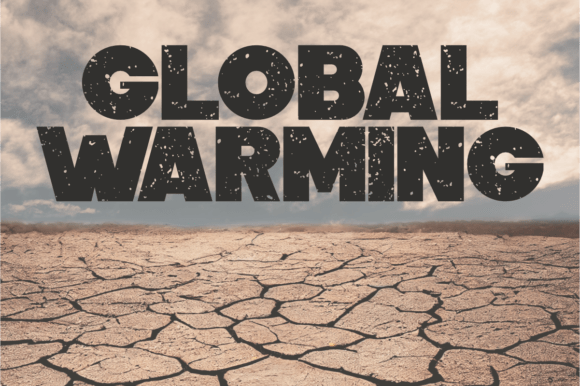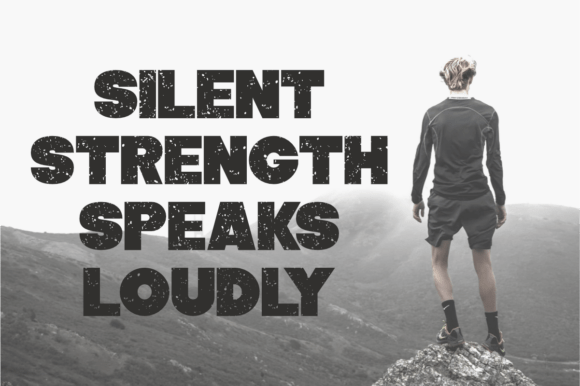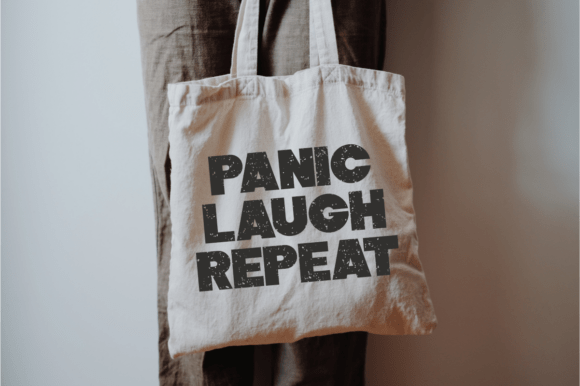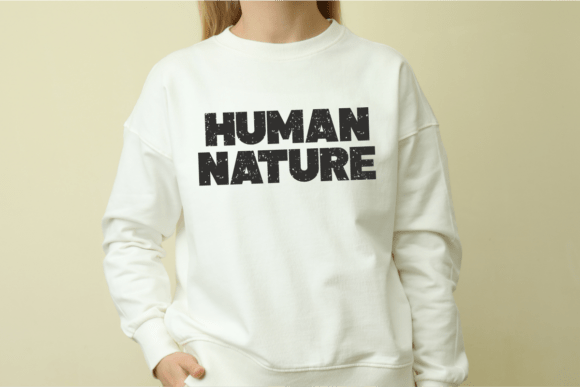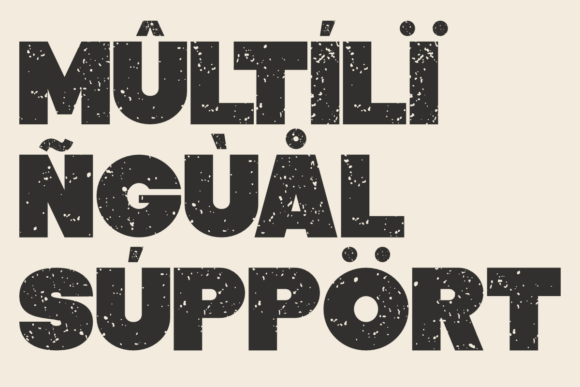
Unleash Your Creativity with Bold Noise Font
I’ll never forget the time I was working on a streetwear branding project, and my client asked for a font that would make their logo stand out on a crowded shelf. I scoured the internet, trying out font after font, but nothing seemed to capture the raw energy and vintage texture I was looking for. That was until I stumbled upon Bold Noise Font. 💥
This bold distressed display font has been a game-changer for my design projects, and I’m excited to share its awesomeness with you. With its chunky letterforms and rough grunge details, Bold Noise is perfect for adding a rugged yet modern touch to your creative projects.
What Makes Bold Noise Font So Special?
Bold Noise Font is designed to bring a strong visual impact to your designs, making it ideal for posters, streetwear branding, t-shirt designs, music covers, logos, headlines, packaging, retro themes, urban graphics, and bold typography projects. Here are some of the things I love about this font:
• ✨ Unique texture: The rough grunge details give Bold Noise a distinctive, vintage feel that’s perfect for adding character to your designs.
• ✅ Highly legible: Despite its bold and distressed look, Bold Noise remains surprisingly easy to read, even at smaller sizes.
• 💥 Attention-grabbing: This font is designed to stand out, making it perfect for headlines, titles, and other attention-grabbing applications.
While Bold Noise Font is an amazing addition to any design project, it’s not perfect. Here are a few things to keep in mind:
• 🤔 Limited use cases: Due to its bold and distressed nature, Bold Noise may not be the best choice for body text or other applications where readability is crucial.
• ⚠️ Glyph limitations: While Bold Noise has a range of glyphs and stylistic alternates, it may not have every character or symbol you need.
The Story Behind Bold Noise Font
Bold Noise Font was designed by a team of creatives who wanted to create a font that would capture the raw energy and rebellious spirit of urban culture. Inspired by vintage streetwear and graffiti, Bold Noise is a font that’s designed to make a statement.
What is Bold Noise Font? Bold Noise Font is a bold distressed display font designed for creative projects that require a strong visual impact.
Is Bold Noise Font suitable for body text? While Bold Noise Font is highly legible, its bold and distressed nature makes it better suited for headlines, titles, and other attention-grabbing applications.